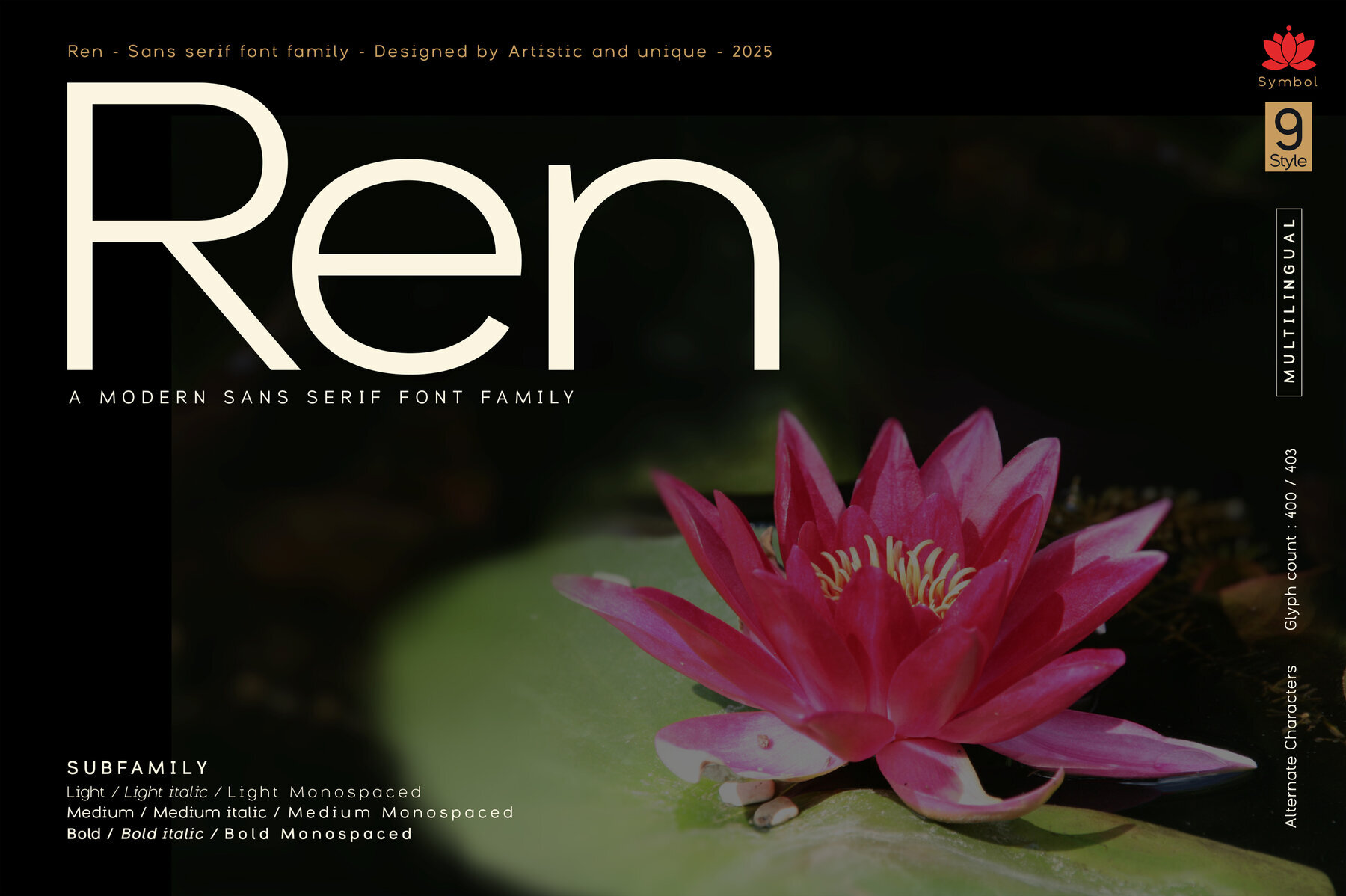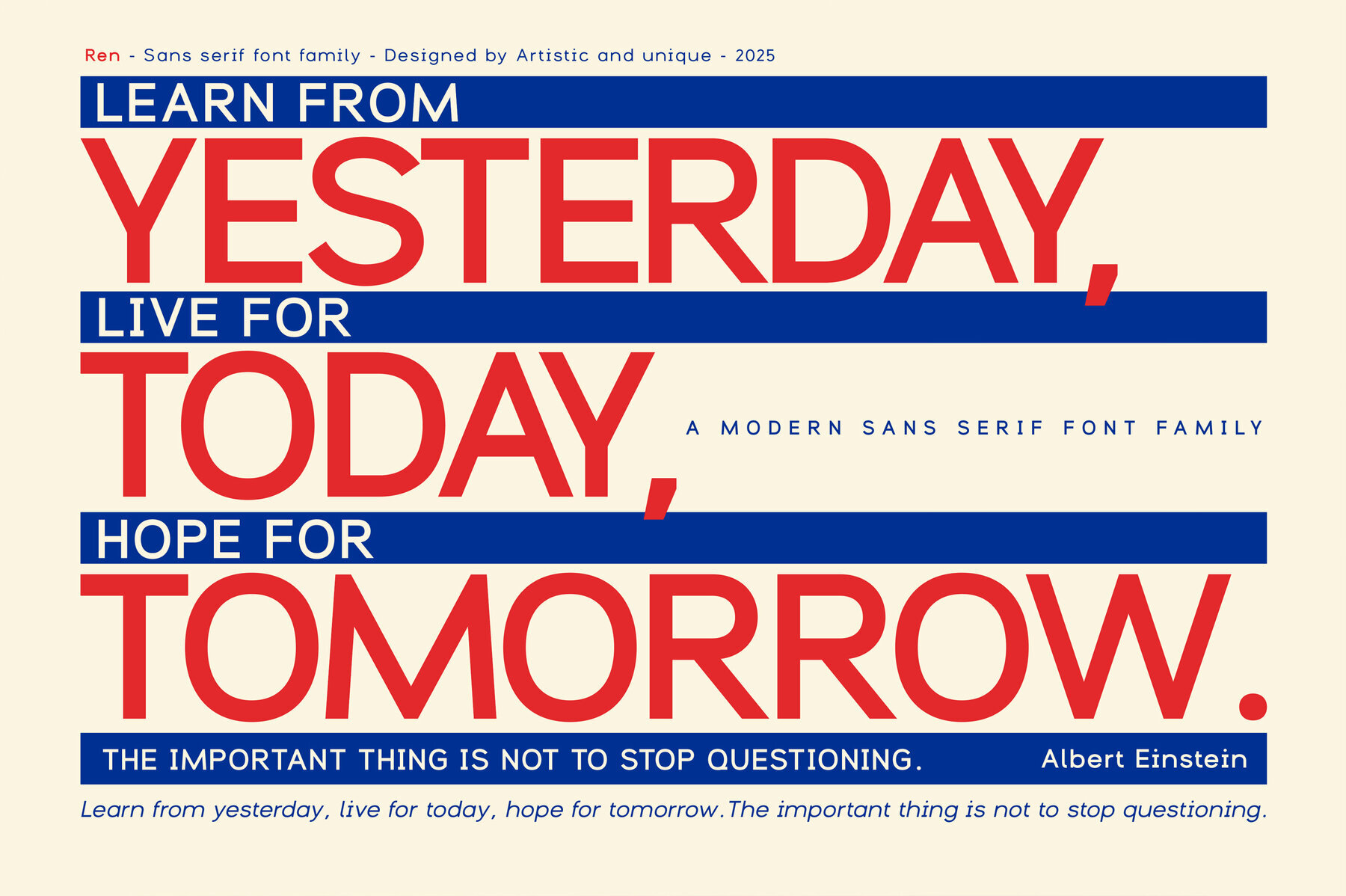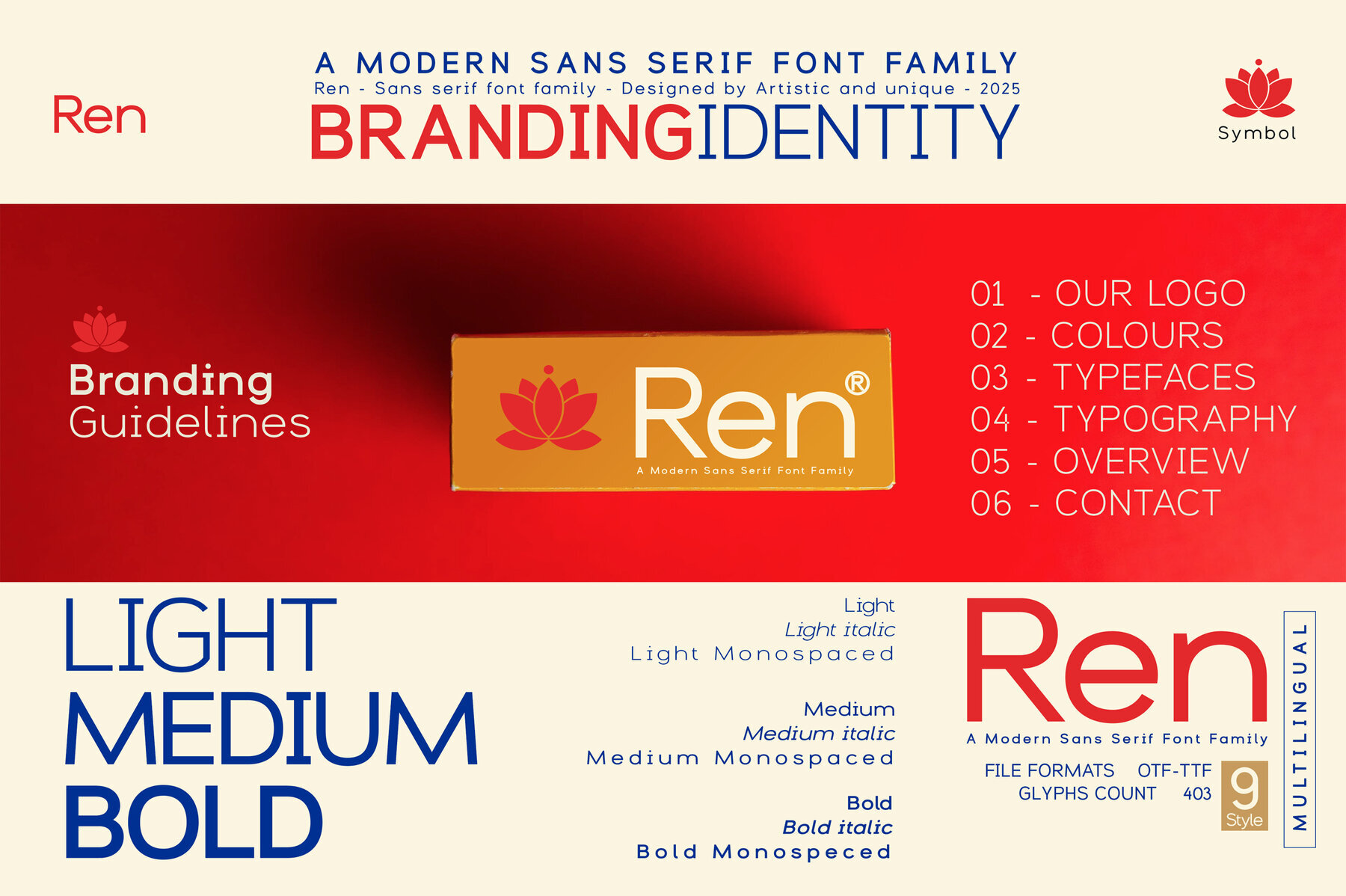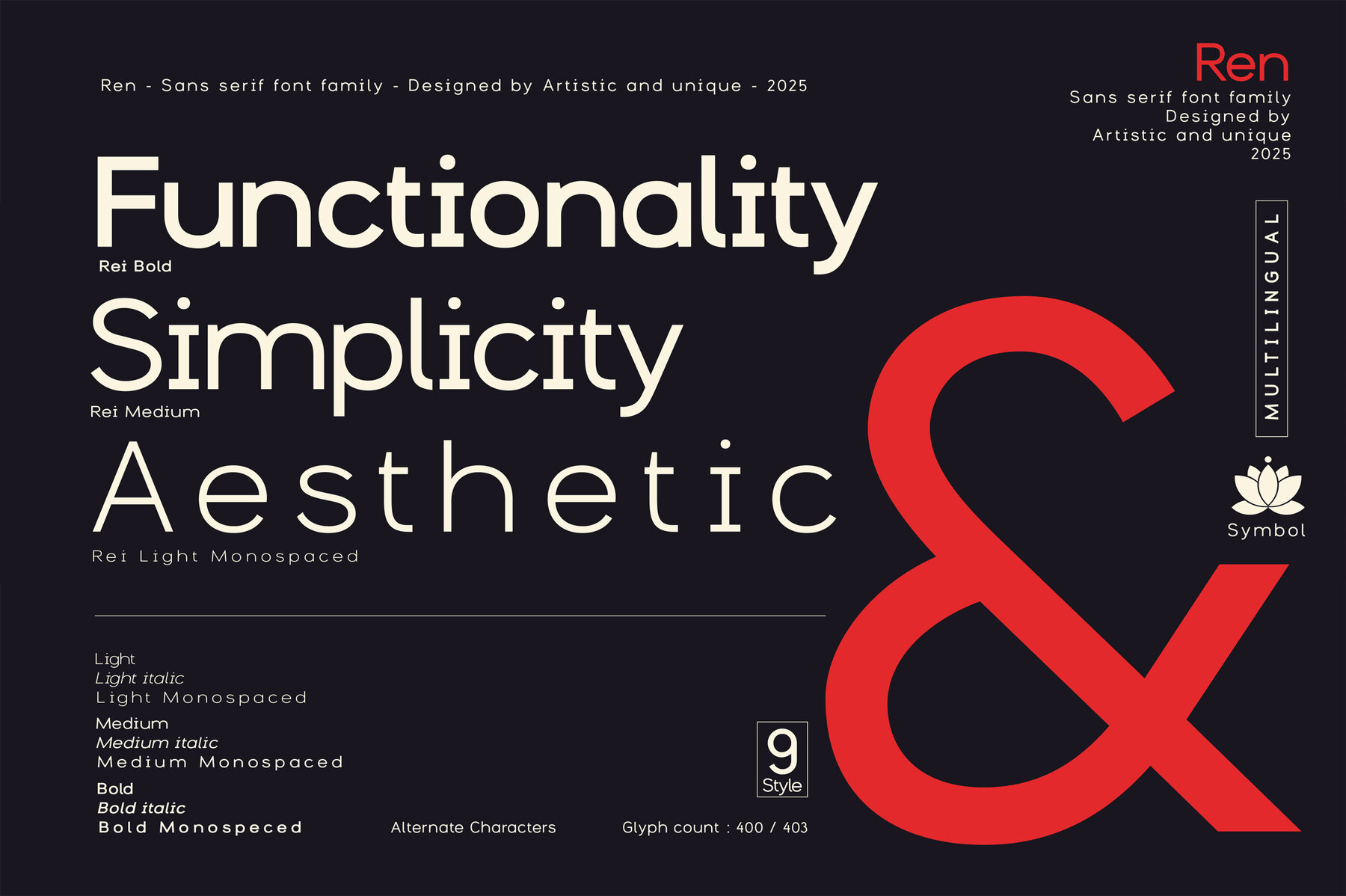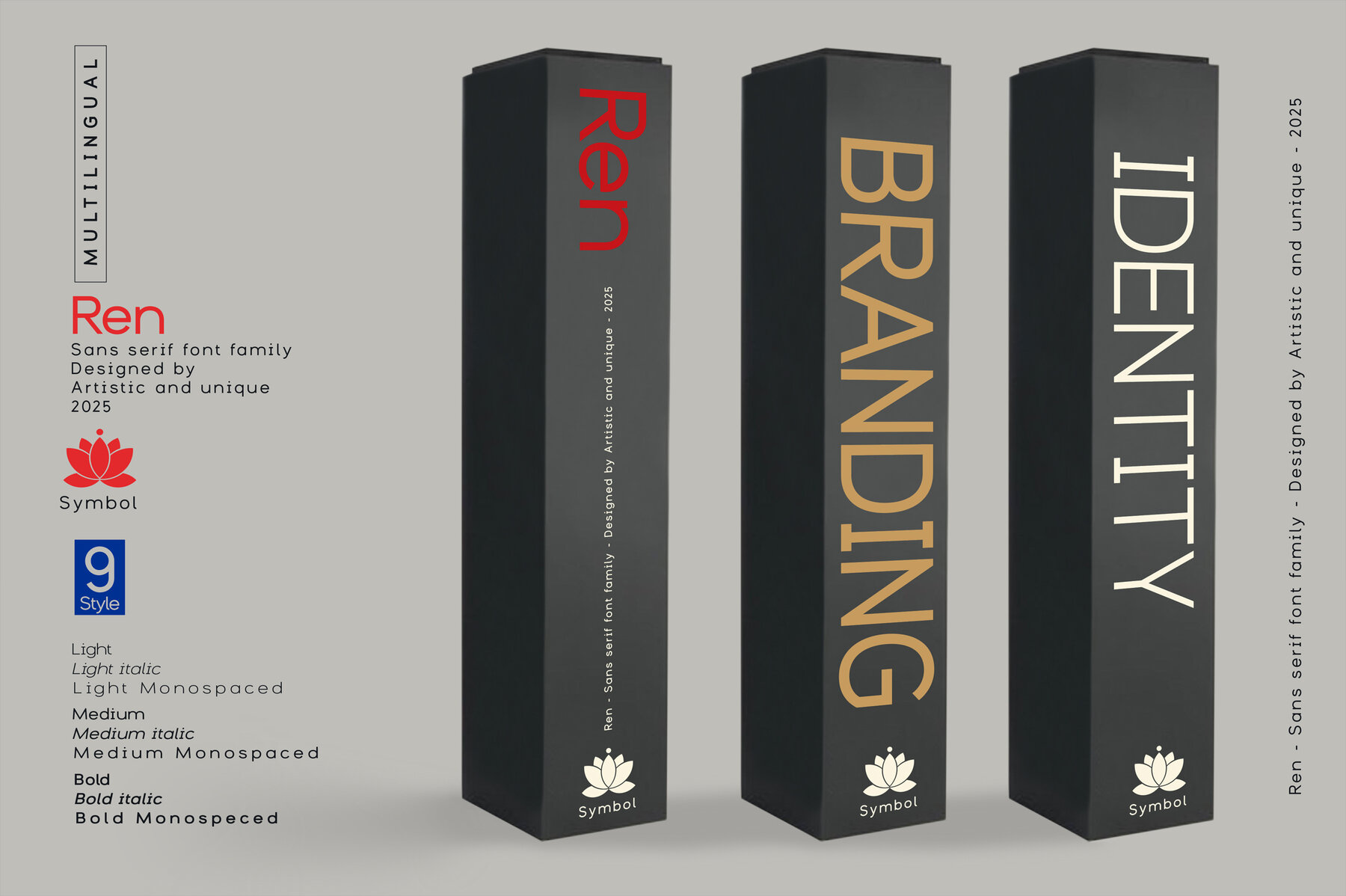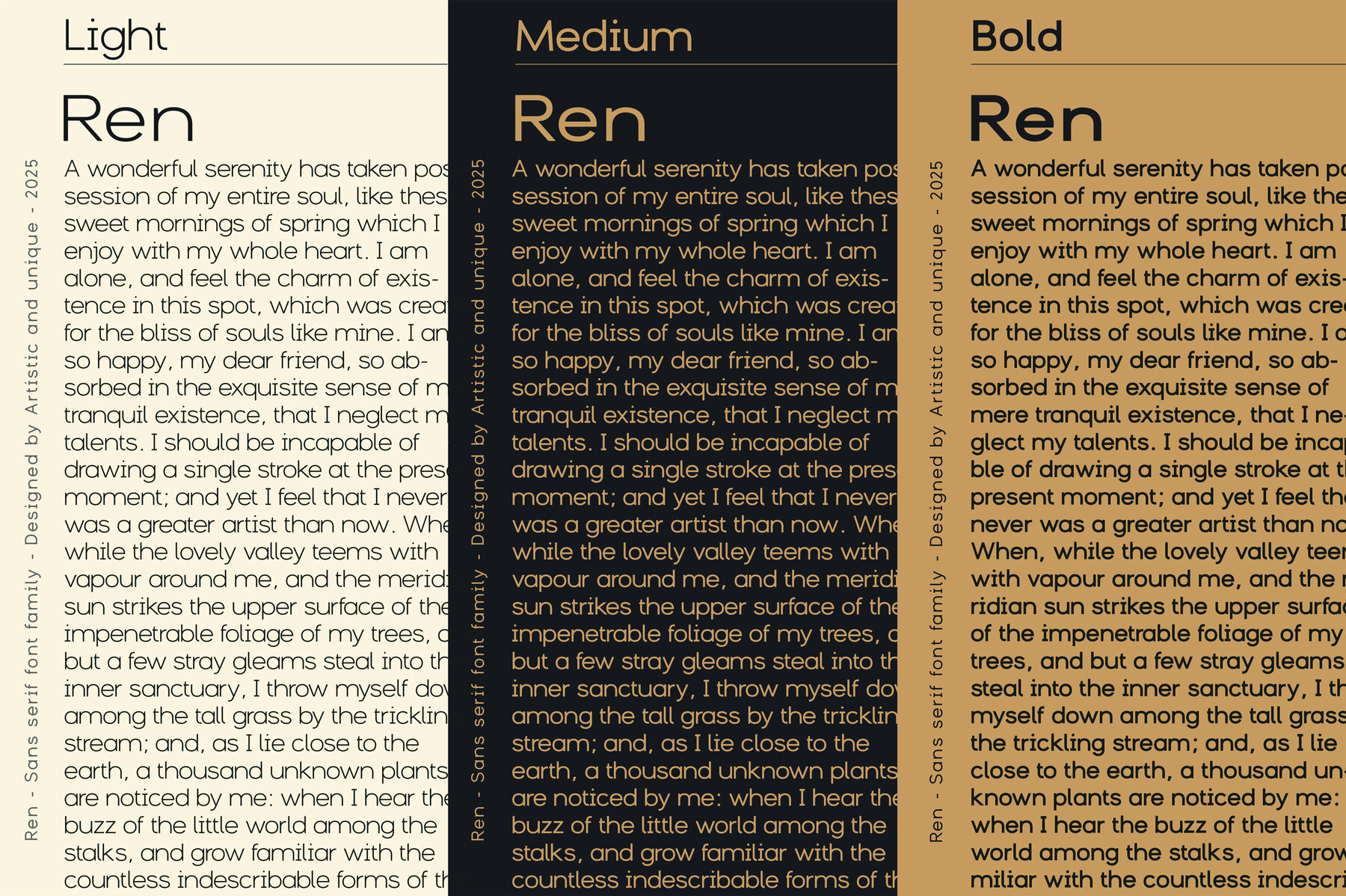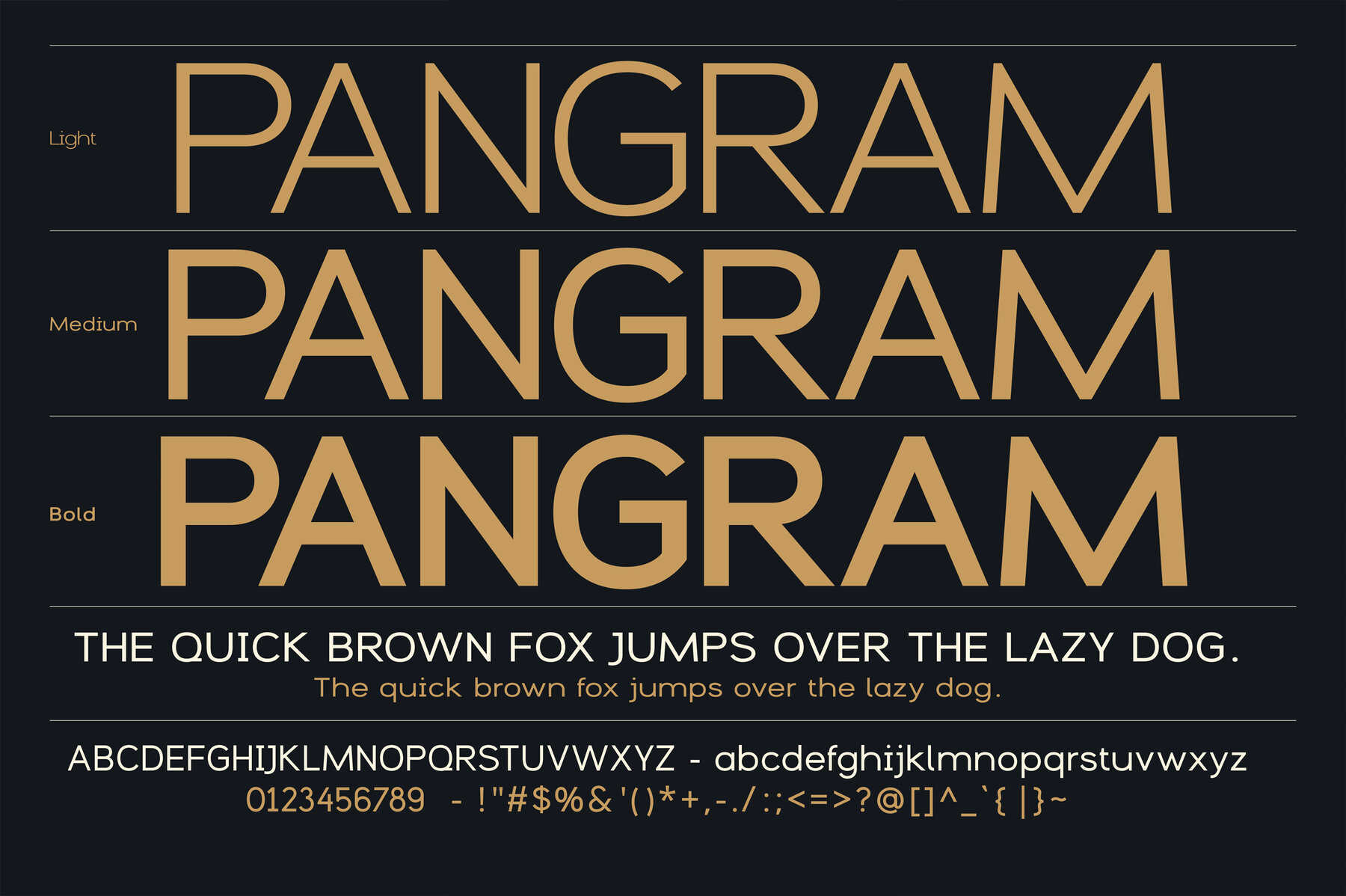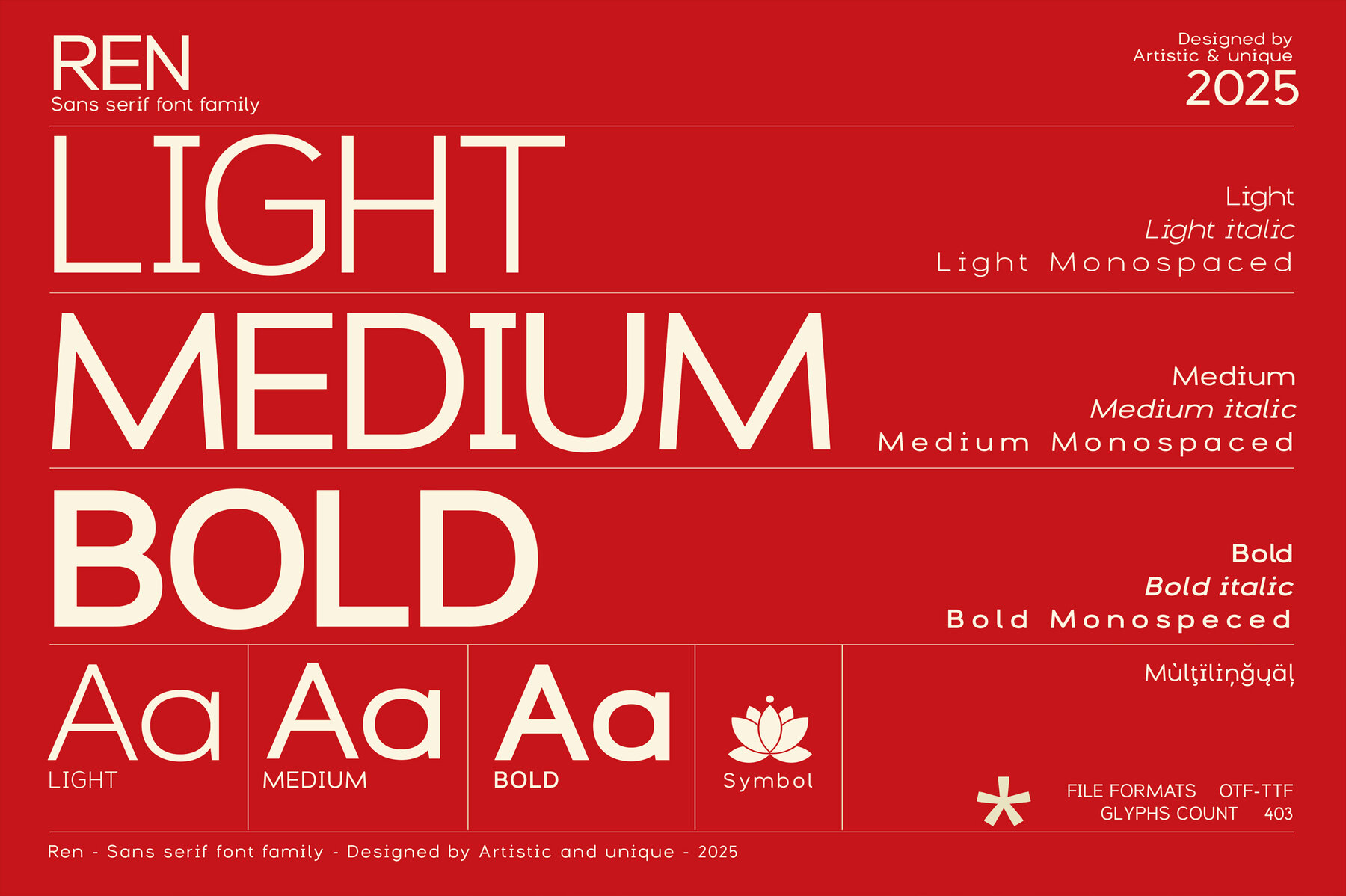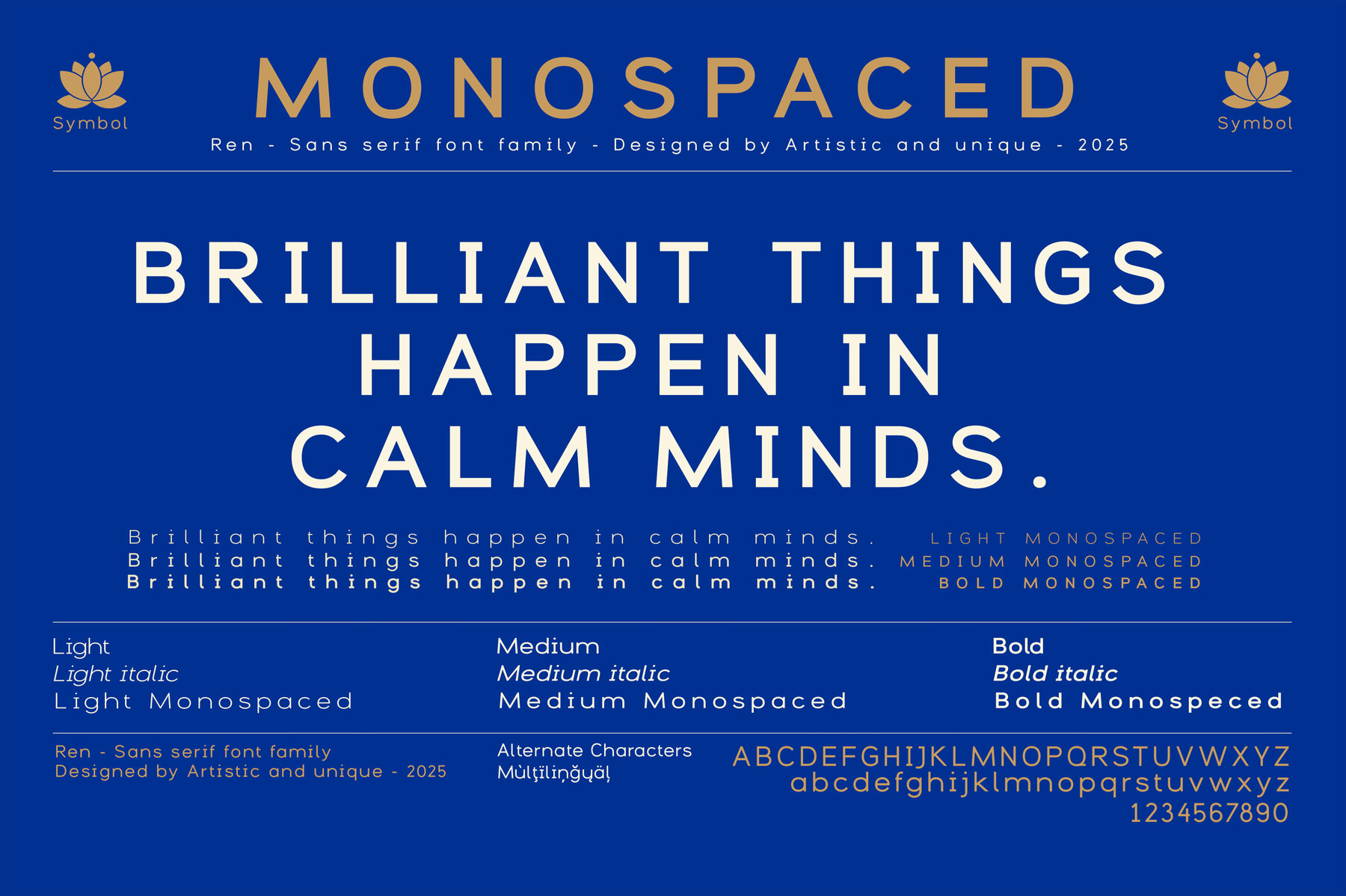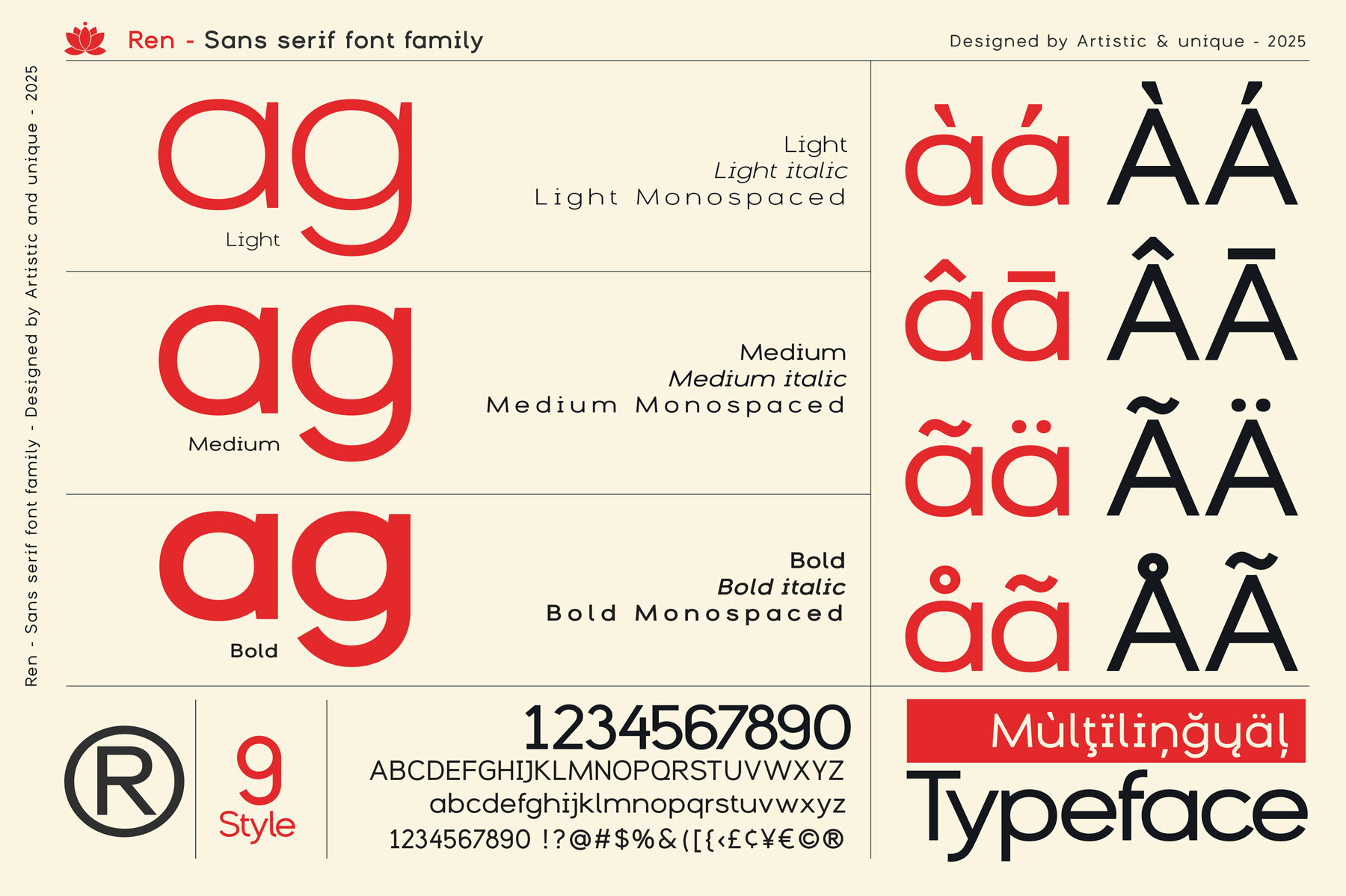
Ren Font
Drawing inspiration from the Ren flower, also known as the Lotus, this font family celebrates purity and enlightenment. Showcasing the elegance of Japanese aesthetics, Ren brings a sophisticated simplicity to sans serif typefaces. The font family, with its nine varied styles and alternative characters, is designed to enrich creative projects with a deep sense of aesthetic value. Ren offers a comprehensive solution for those seeking elegance in design, especially through its three Monospaces styles. Crafted for global reach, its multilingual support ensures versatility across diverse projects. From editorial headlines to logos and branding elements, Ren promises a harmonious blend of modern functionality and timeless charm. This versatile font collection is well-suited for use in books, magazines, websites, and more, respecting tradition while adapting to the demands of contemporary creativity.Ren: Elegant Sans Serif Font Collection